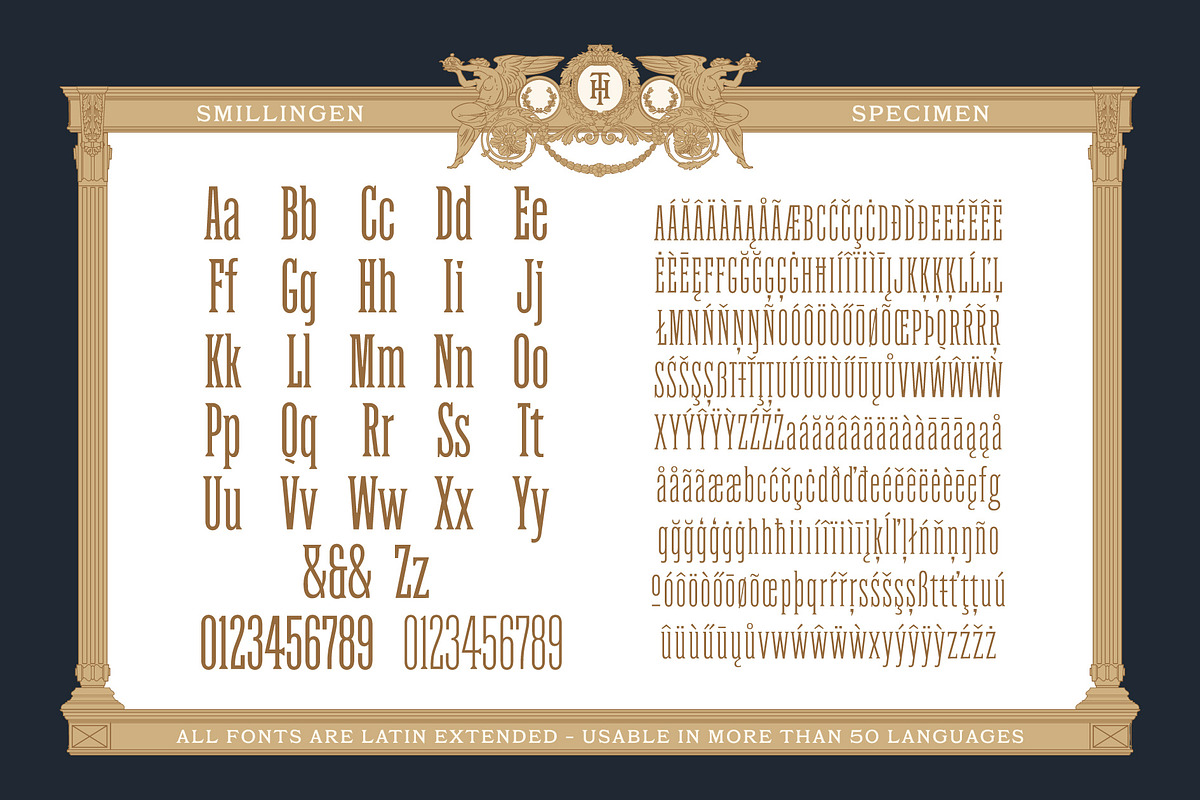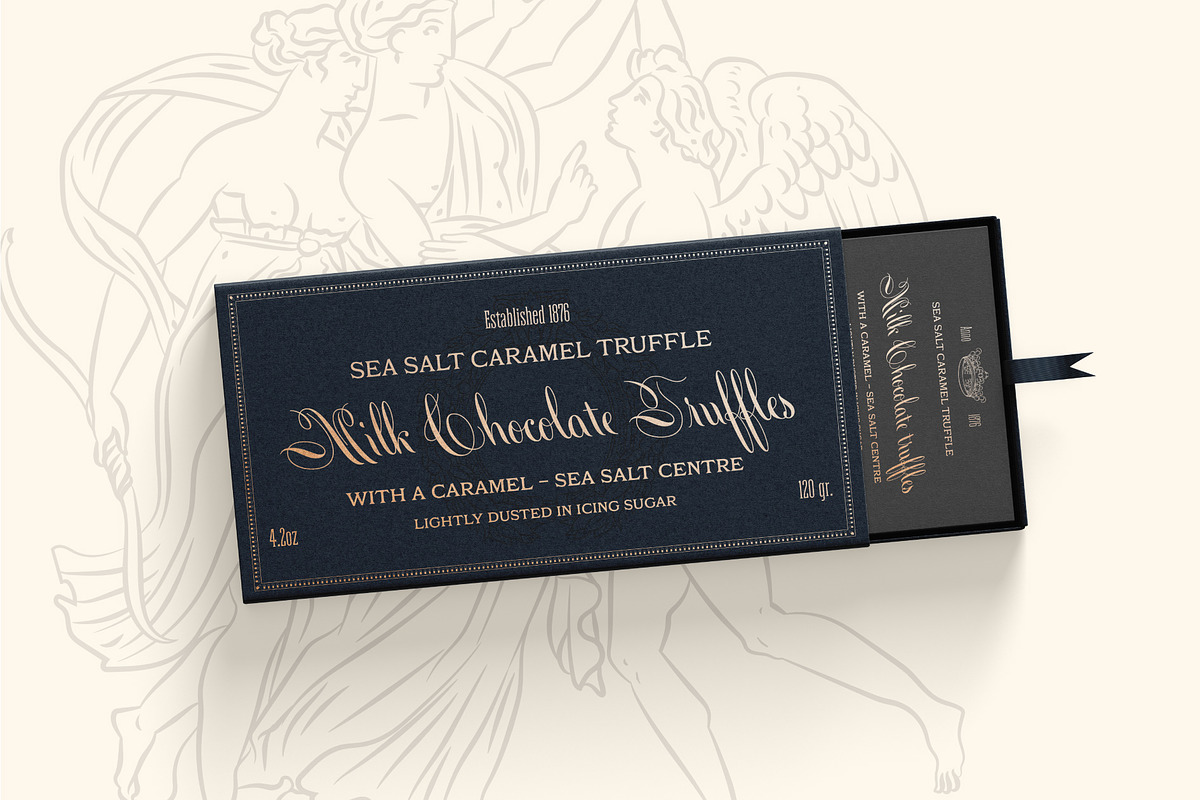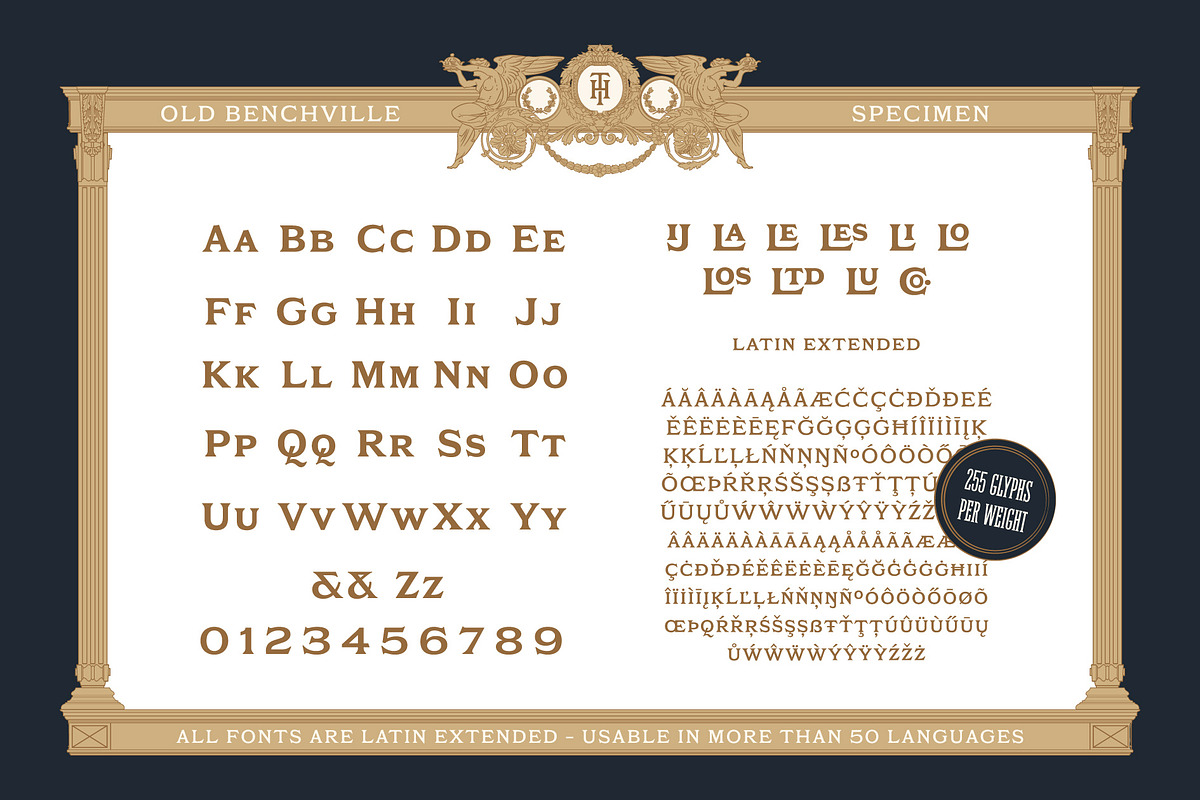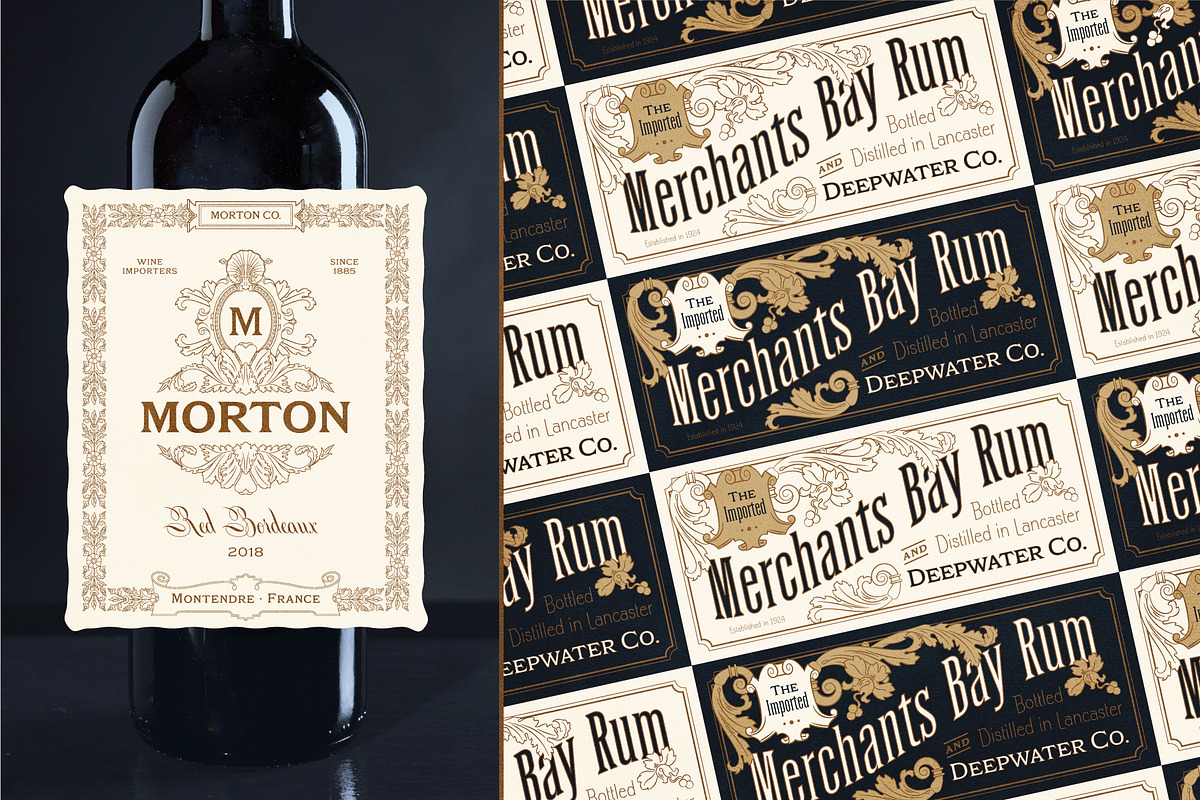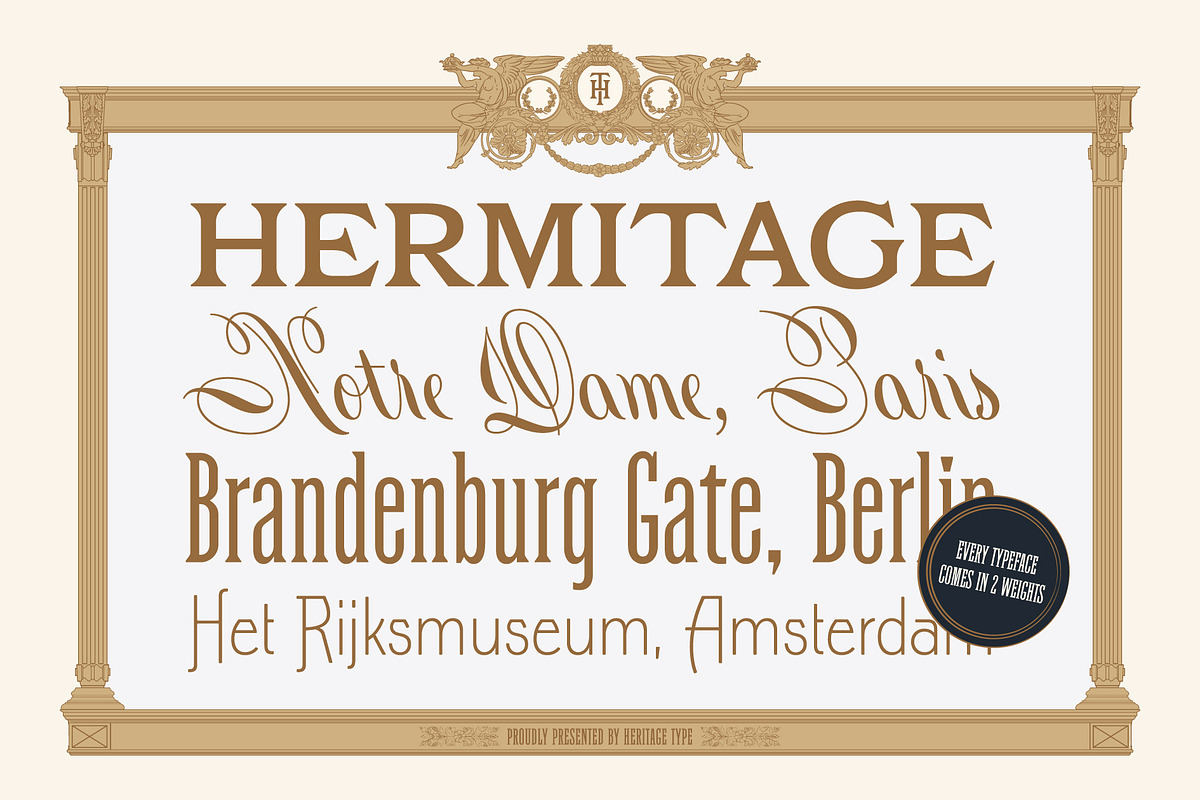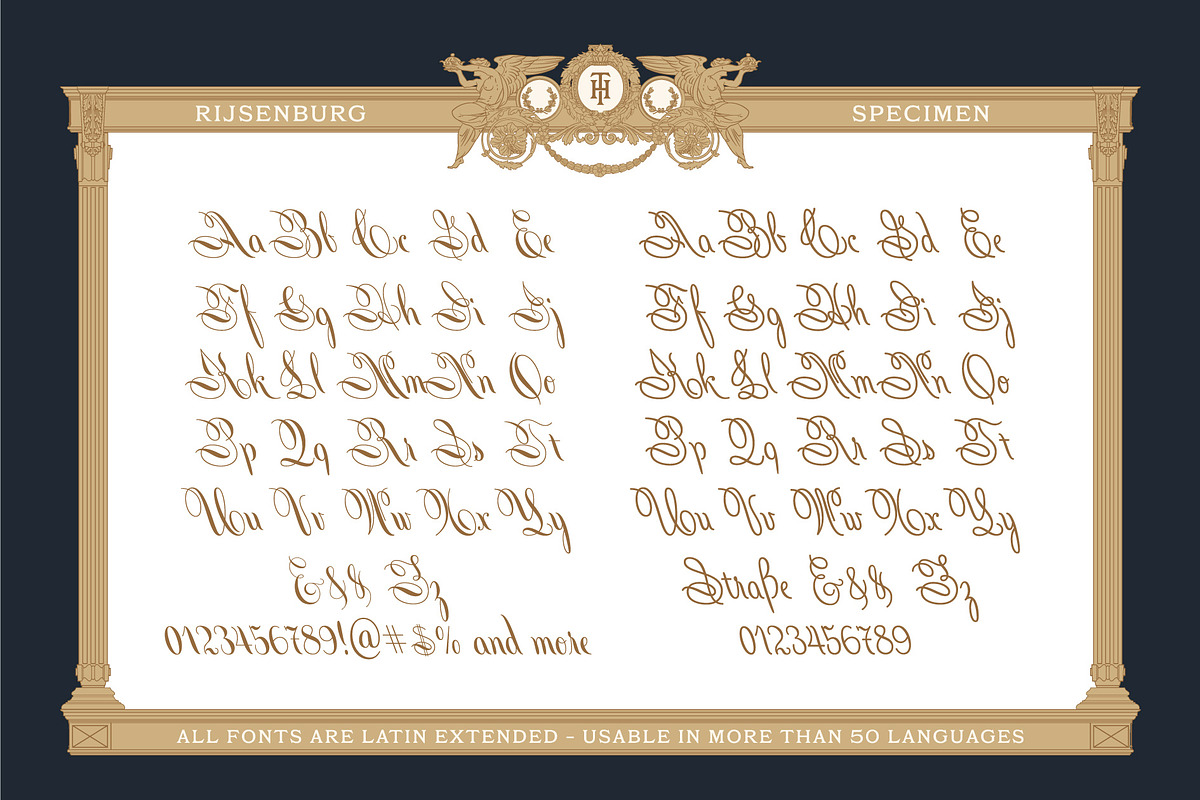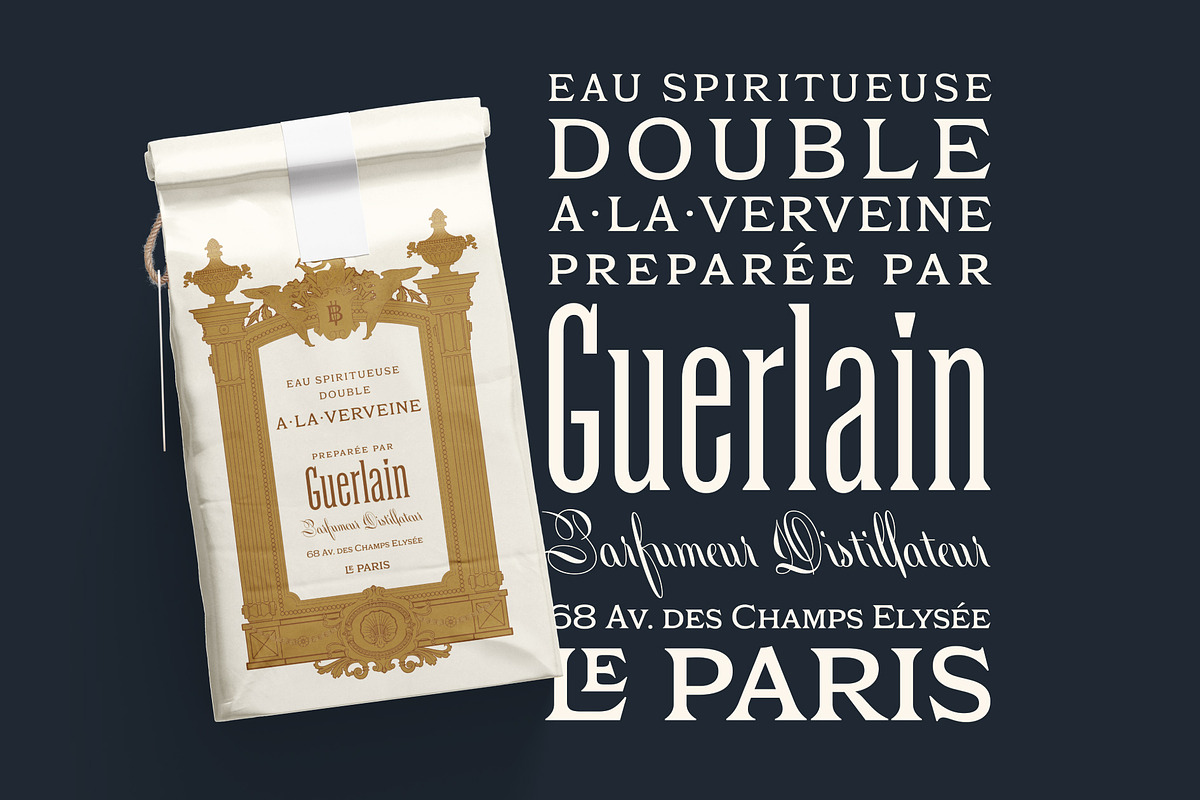
Hermitage Fonts and Illustrations
The Hermitage Fonts and Illustration Collection contains a set of 4 elegant vintage typefaces and many specials. Each typeface comes in two weights, designed by well-known type designer Viktor Baltus. All fonts are Latin extended and usable in more than 50 languages. They are made to compliment each other and can easily be paired to create beautiful designs for packaging, labels, logos, and more. Additionally, the collection includes a set of 64 sculptural vector illustrations inspired by Roman and Rococo architecture.
- Old Benchville Bold & Regular - Price $19
- Rijsenburg Bold & Low Contrast - Price $19
- Smillingen Regular & Thin - Price $19
- Stepelo Regular & Italic - Price $19
- Latin extended glyph set (usable in more than 50 languages)
- Alternate Characters and Ligatures